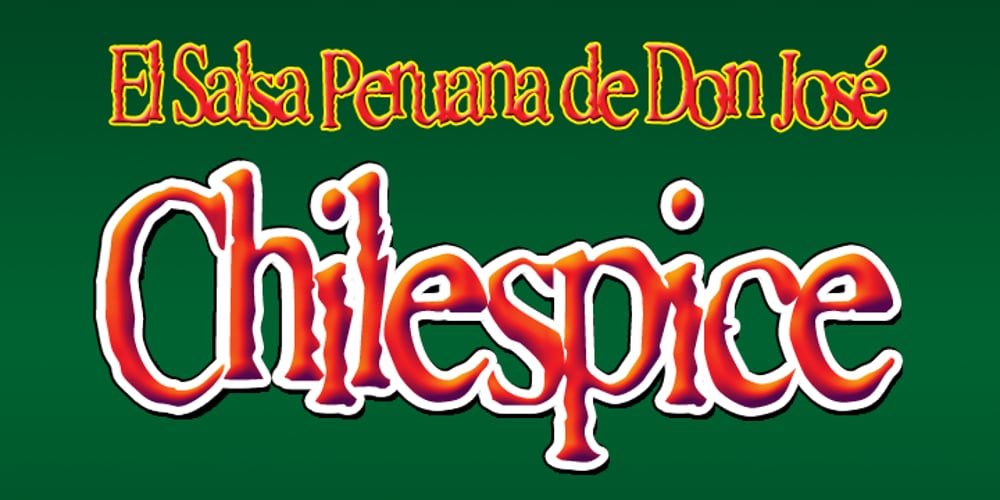
Chilespice Font Family was designed by Randy Harris and published by Just My Type. Chilespice contains 1 styles and family package options. Chilespice was originally designed to head a newspaper article on chiles. Use it when you need something verdant and organic.